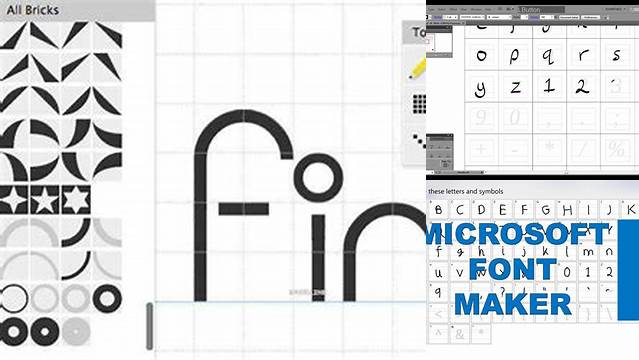
Create Your Own Font Online Free: Easy DIY Guide
Creating your own font might sound like a daunting task reserved for professional designers, but guess what? It's totally achievable for anyone, even you! The digital world has opened up a treasure trove of free online tools that make font creation accessible and fun. Whether you're a budding graphic designer, a hobbyist looking to add a personal touch to your projects, or simply curious about typography, this guide will walk you through the process of making your own font online, completely free of charge. So, let's dive in and unleash your inner font designer!
Why Create Your Own Font?
Before we jump into the how, let's explore the why. Creating your own font offers a plethora of benefits, both personal and professional.
Unique Branding
In the competitive world of branding, standing out is crucial. A custom font can be a powerful tool in establishing a unique brand identity. Imagine your logo, website, and marketing materials all sporting a typeface that's distinctly yours. This level of personalization can significantly elevate your brand's recognition and memorability. Think about iconic brands like Coca-Cola or Disney – their fonts are instantly recognizable and synonymous with their brand. While you might not be aiming for that level of global recognition just yet, a custom font can certainly help you carve out your own niche.
Personal Expression
Beyond branding, font creation can be a fantastic outlet for personal expression. Your handwriting, your artistic style, your personality – all of these can be translated into a unique typeface. It's like giving your thoughts and words a visual voice that's entirely your own. Imagine writing a heartfelt letter in a font that perfectly captures your emotions or designing a poster with a typeface that screams your artistic vision. The possibilities are endless!
Creative Exploration
Delving into font design is a fantastic way to explore your creativity and learn about the intricacies of typography. You'll start to notice the subtle nuances of different typefaces, the way letterforms interact with each other, and the impact of kerning, leading, and other typographic elements. This newfound knowledge can not only enhance your font design skills but also improve your overall design sensibility.
Practical Applications
Of course, custom fonts have practical applications too. You might need a specific typeface for a niche project, a unique logo, or even a personal website. Instead of scouring the internet for the perfect font, you can simply create your own! This not only saves you time and effort but also ensures that you have a font that perfectly meets your needs.
Free Online Font Makers: Your Toolkit
Now that we're all fired up about creating our own fonts, let's talk about the tools you'll need. The good news is, you don't need expensive software or years of experience to get started. There are several free online font makers that provide user-friendly interfaces and a wide range of features. Here are a few popular options:
Calligraphr
Calligraphr is a fantastic tool for turning your handwriting into a font. It's incredibly easy to use: you download a template, handwrite the letters and characters within the provided boxes, scan the template back in, and upload it to Calligraphr. The website then converts your handwriting into a usable font file. This is a perfect option for creating personalized fonts for invitations, cards, or any project where you want to add a handwritten touch. With Calligraphr, you can fine-tune your font by adjusting the thickness, smoothness, and other parameters.
FontStruct
FontStruct takes a more modular approach to font design. It uses geometric shapes – think squares, circles, and triangles – that you can combine and arrange to create letterforms. This brick-building approach might sound limiting, but it actually fosters creativity and allows you to create unique, geometric fonts. FontStruct is particularly well-suited for designing display fonts, which are often used for headlines and logos. The platform boasts a vibrant community where you can share your creations and draw inspiration from other designers.
BirdFont
BirdFont is a free, open-source font editor that offers a more traditional font design experience. It provides a comprehensive set of tools for drawing and manipulating Bezier curves, the foundation of most digital fonts. While BirdFont has a steeper learning curve than Calligraphr or FontStruct, it offers greater control and flexibility. If you're serious about font design and want to create professional-quality typefaces, BirdFont is an excellent choice. Plus, being open-source means it's constantly being updated and improved by a community of developers.
FontForge
FontForge is another powerful, open-source font editor that's been around for ages. It's a favorite among professional font designers due to its extensive feature set and ability to handle complex font projects. Like BirdFont, FontForge uses Bezier curves for letterform design, but it also offers advanced features like scripting and hinting, which can improve the rendering of your font on different devices and screen sizes. FontForge might be intimidating for beginners, but it's a robust tool that can handle just about any font design task.
5. Adjust Spacing and Kerning
Spacing and kerning are crucial for readability and visual appeal. Spacing refers to the overall distance between letters, while kerning is the adjustment of space between specific pairs of letters. Uneven spacing can make a font look awkward and difficult to read. Most font editors have built-in tools for adjusting spacing and kerning. Pay close attention to letter combinations like